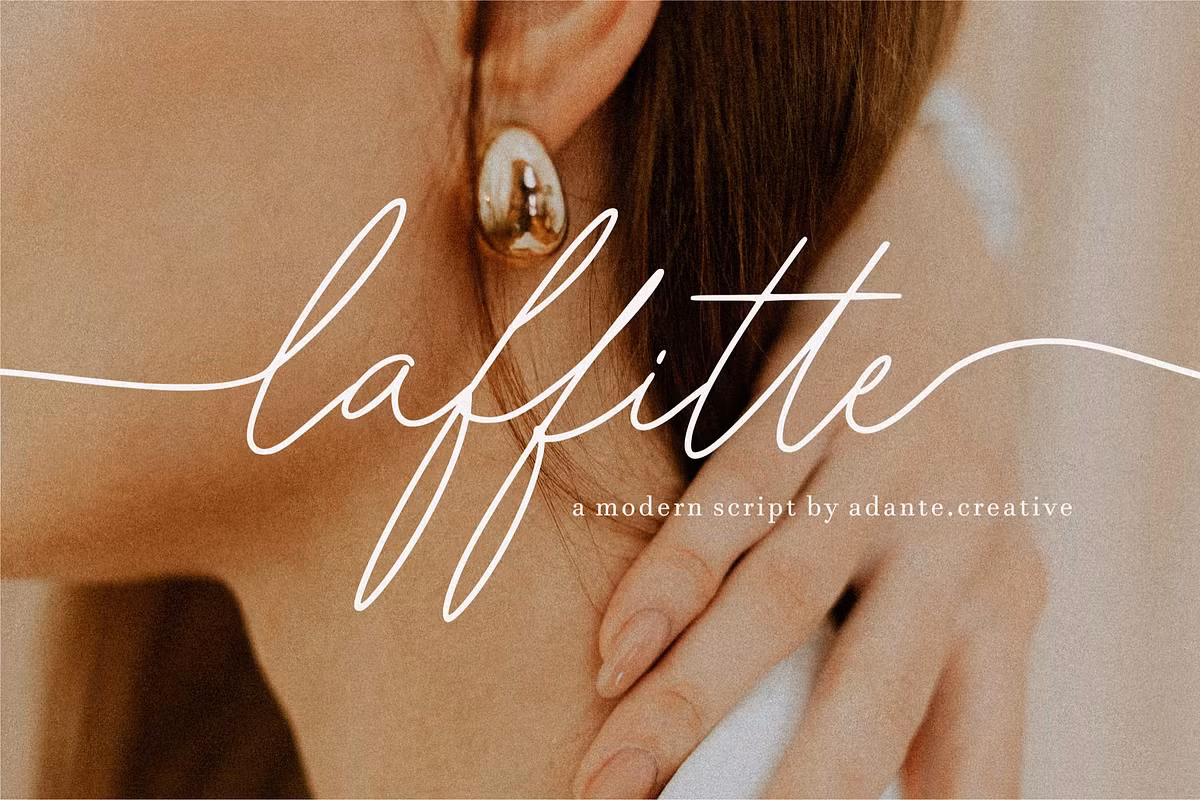
Laffitte Free Download
Laffitte Font Free Download is a sophisticated and elegant typeface that blends classic calligraphic influence with modern styling. Please note, you are required to purchase this font for commercial use. It is available for free download for testing and personal projects only.
With its graceful curves, refined contrast, and timeless design, Laffitte is perfect for luxury branding, formal invitations, editorial titles, packaging, and upscale logo design. It radiates class and confidence, making it a go-to choice for projects that demand a touch of tradition with contemporary flair.